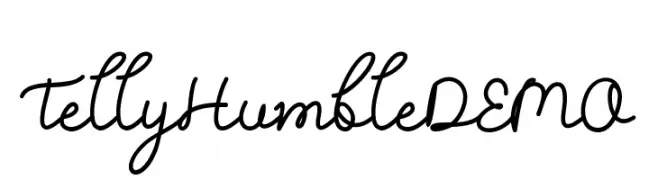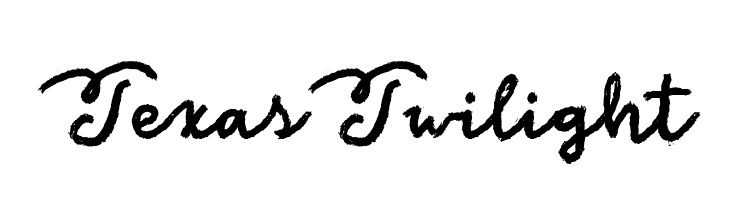
A flowing, cursive font with a handwritten, elegant style.
A bold, geometric font with a modern, minimalistic design.
A modern, geometric font with clean lines and a minimalist style.
( Fonts by Tigadestd )
A playful, handwritten font with bold, rounded strokes and a casual, friendly appearance.
( Fonts by Faqih Fawaji )
A playful, egg-shaped decorative font with bold, rounded characters.
( Fonts by Espen Morten Kvalheim - www.unbornchikken.com )
A modern, geometric font with clean lines and a structured appearance.
A dynamic script font with elegant, sweeping strokes and artistic flair.
A futuristic, geometric font with angular, structured letterforms.
A bold, futuristic font with a 3D outline effect and geometric design.